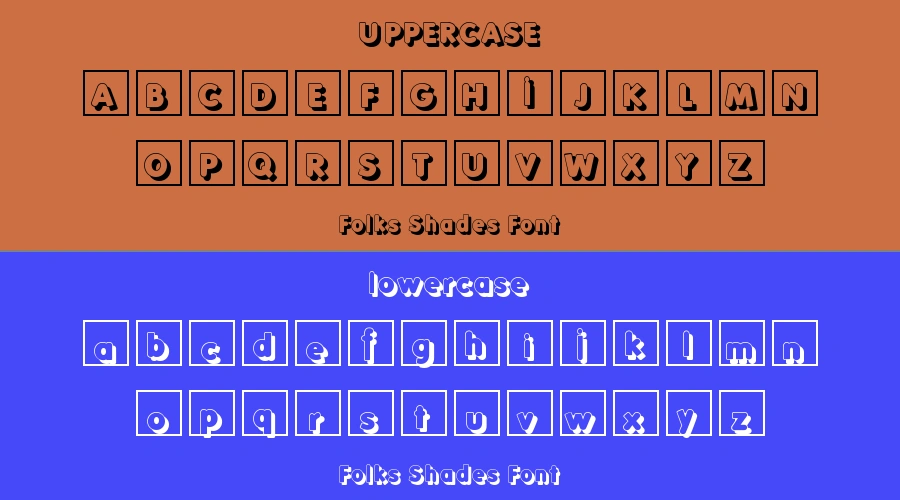
About Folks Shades Font
Folks Shades Font stands out for its distinctive combination of engineered curves and optical adjustments. Ideal for merchandise graphics, it provides the professionalism and academic acceptance that professional projects demand. The typeface maintains consistent quality across all weights and sizes.
Key features include refined contextual swashes and practical beginning forms, enhancing typographic expression. In exhibition titles applications, Folks Shades Font demonstrates exceptional reproduction fidelity. The proportion and cultural relevance contribute to its distinctive character and professional appeal.